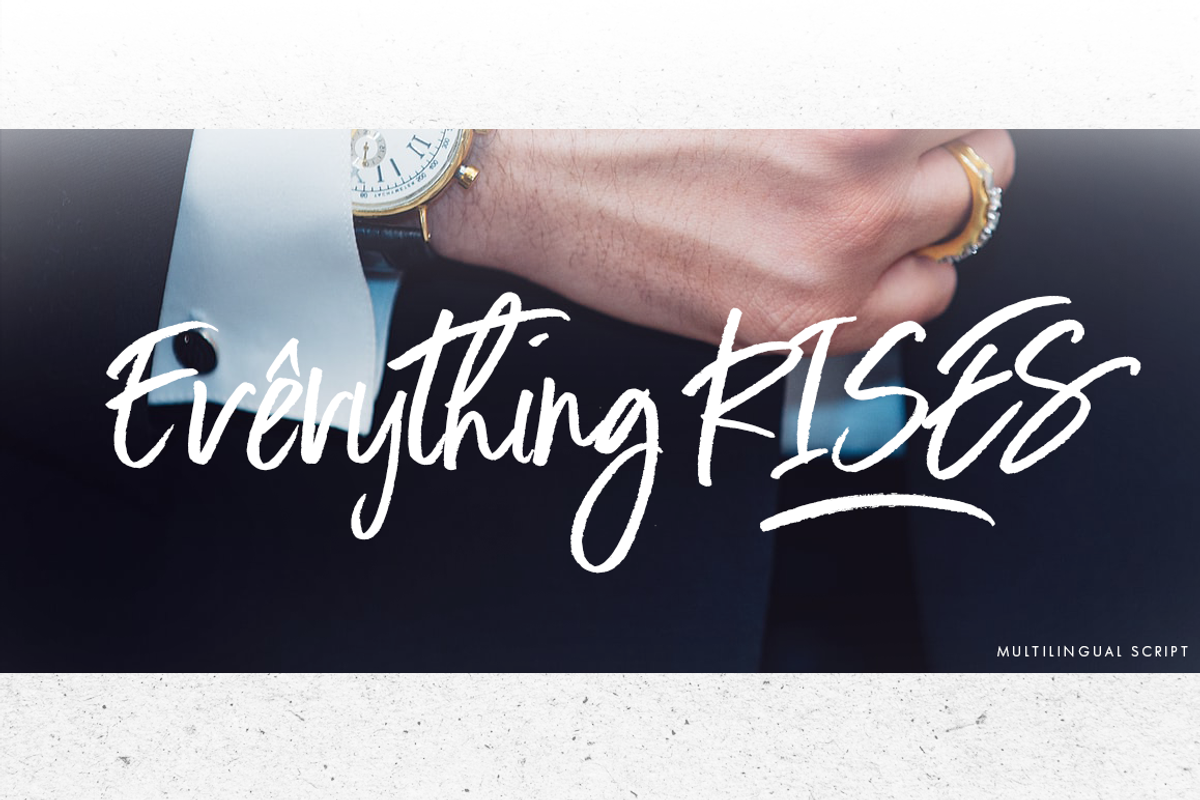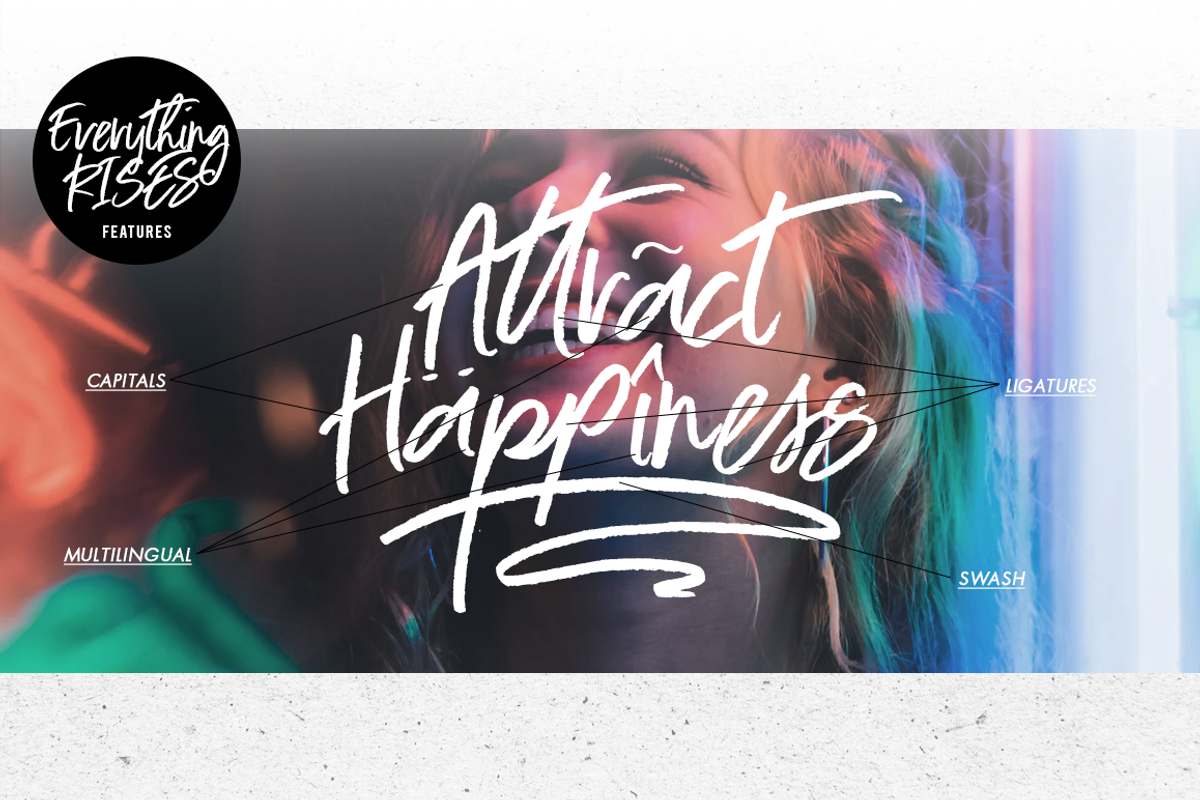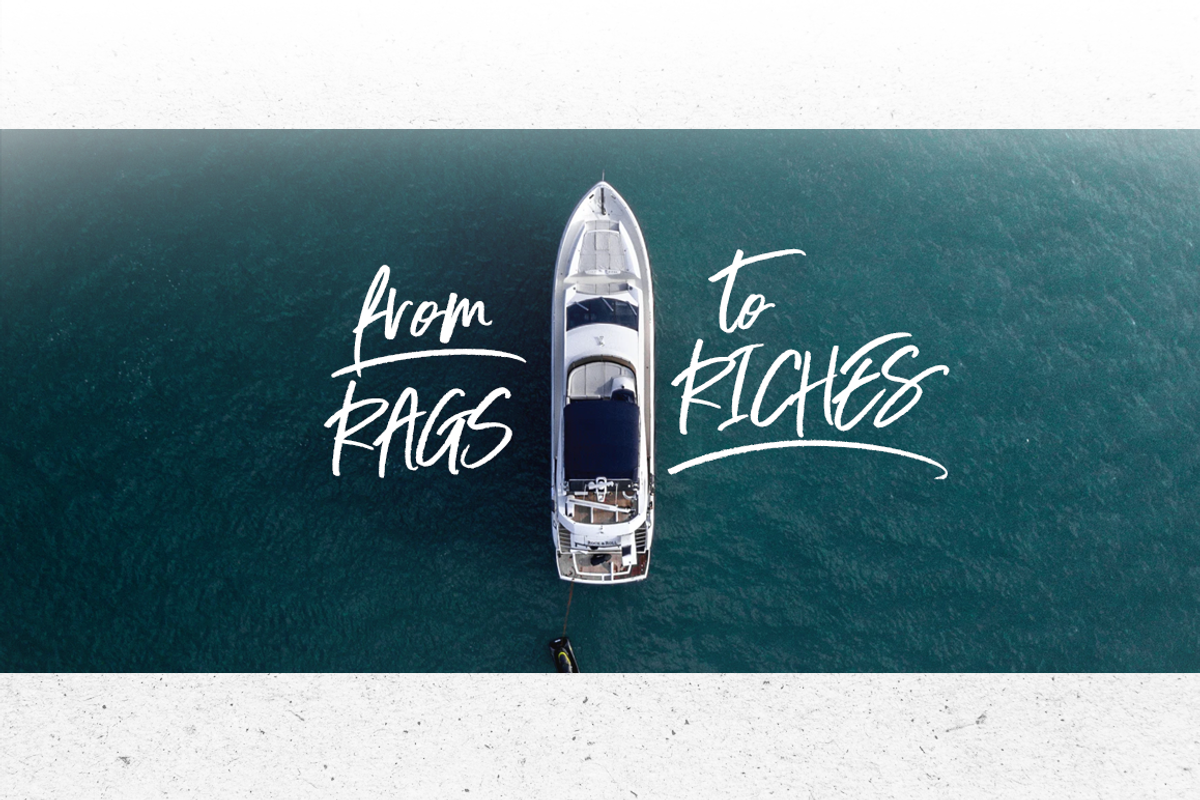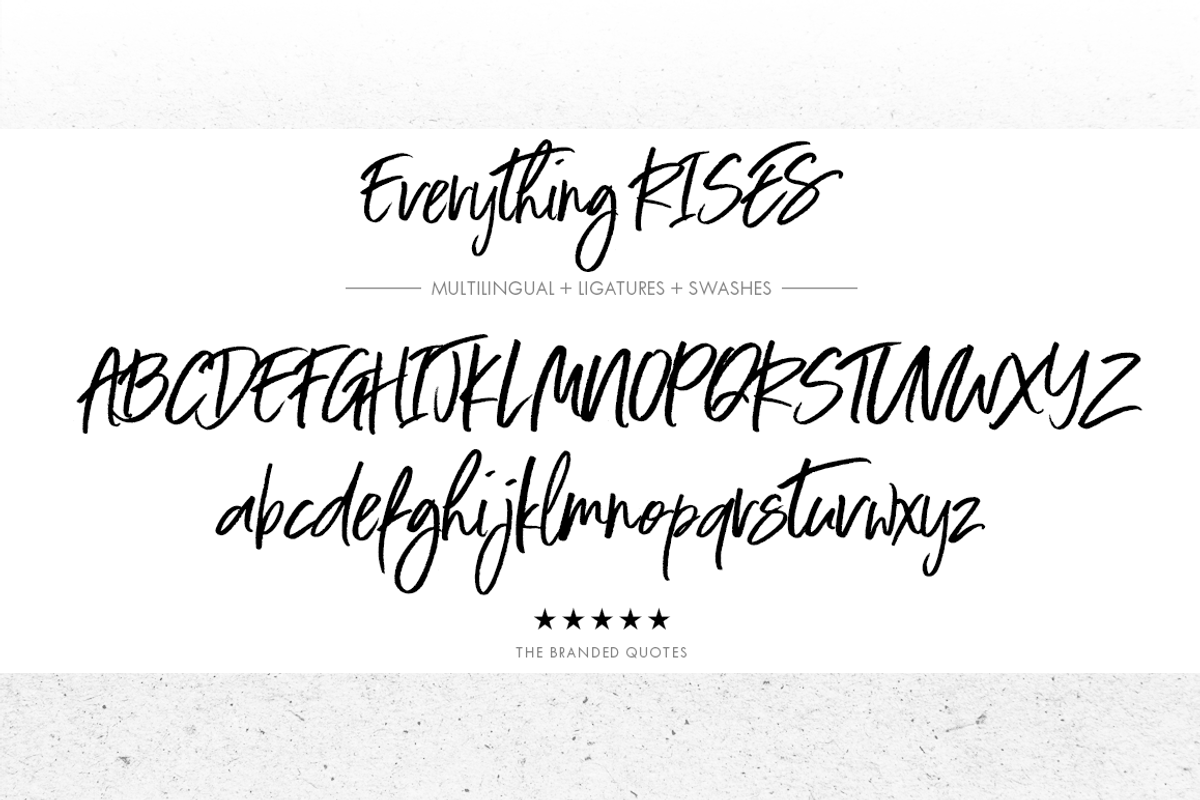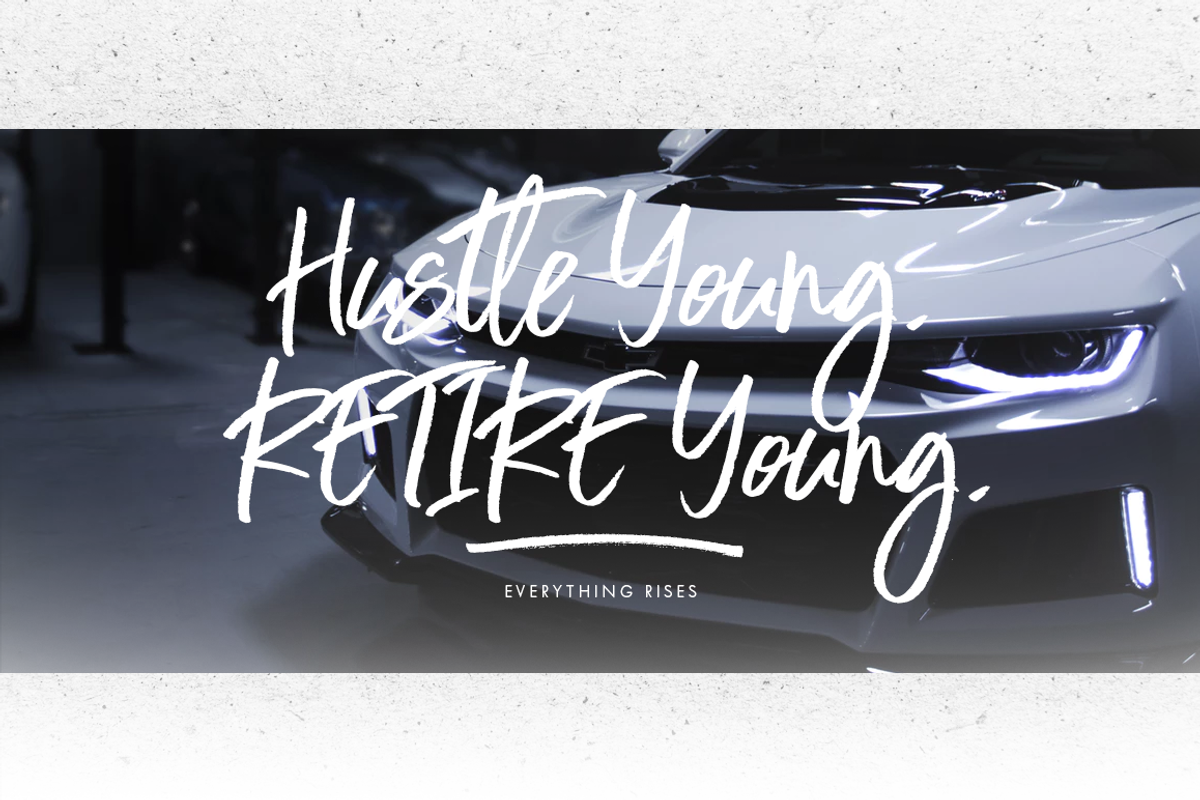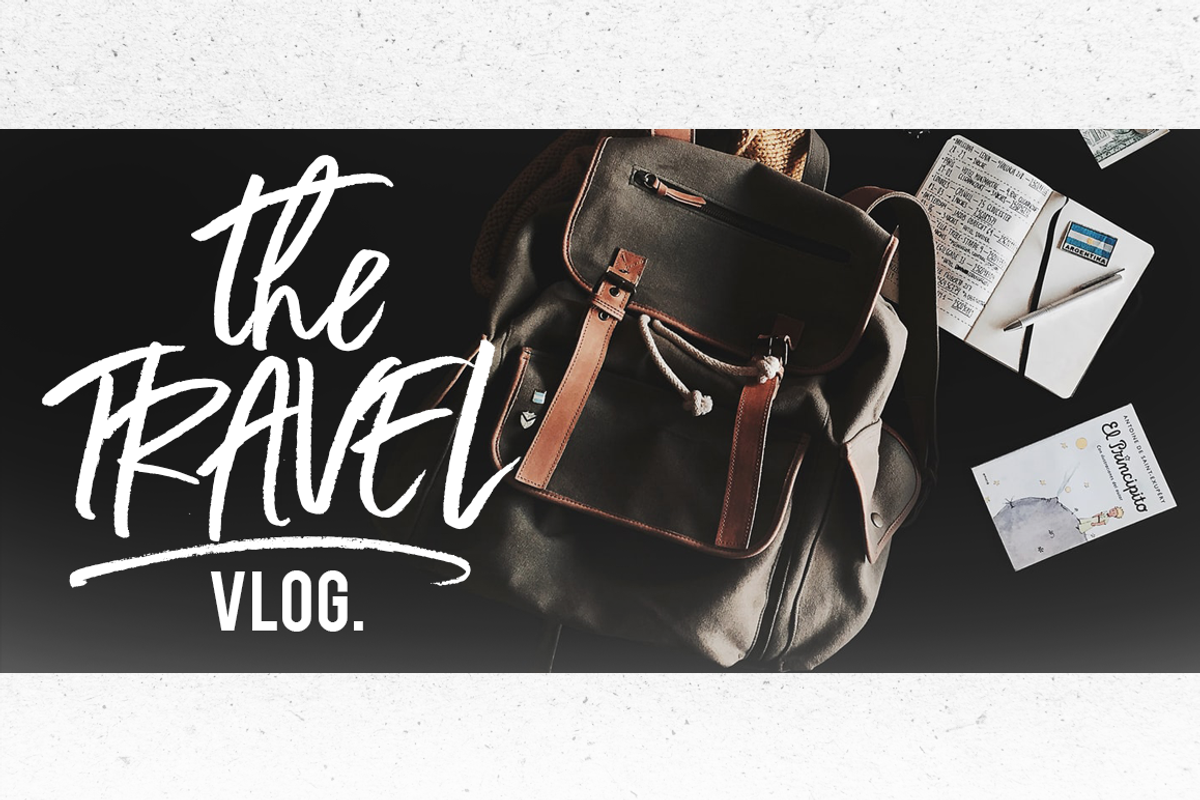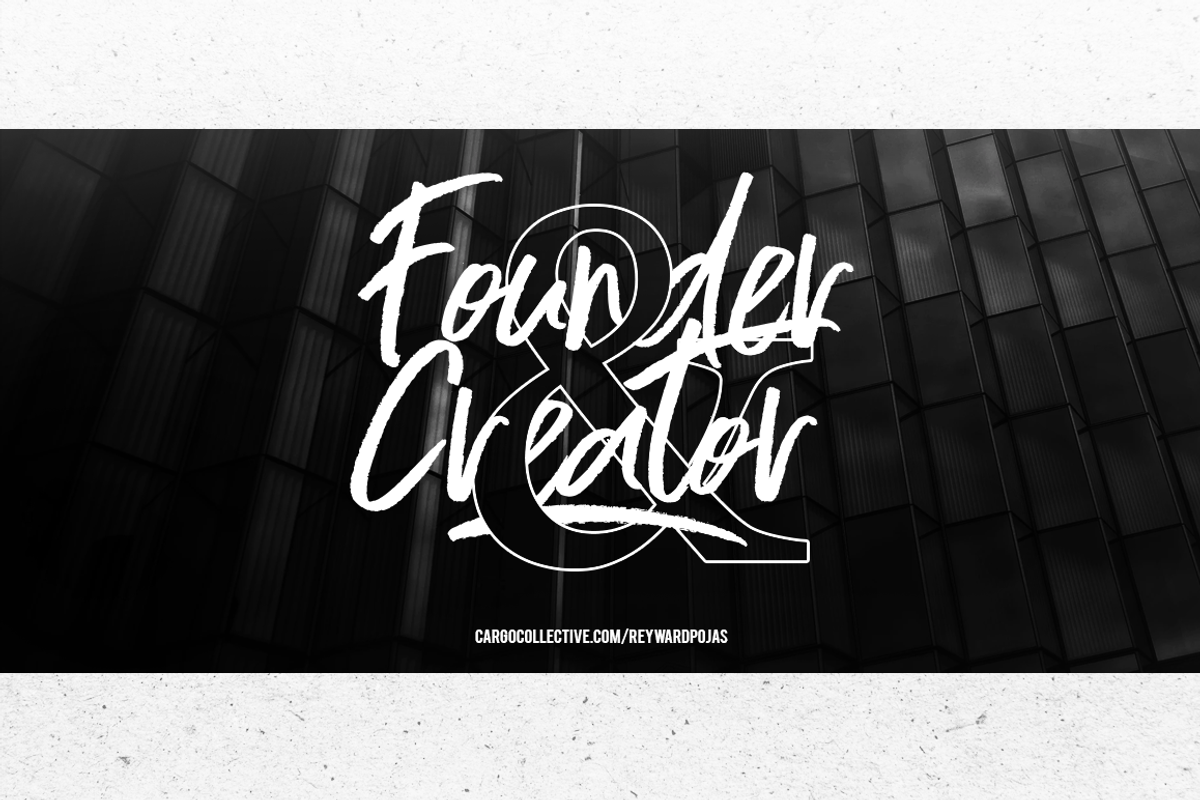
Everything RISES - Typeface
Everything RISES is a multilingual typeface packed with all the motivations. Unleash the alpha and let the logical mind dominates! This brush script can work all lowercase, all capitals or mix them both. Overlay it on your photographs and designs for a glamorous result. Now heads up and wear the mindset of a RISER.
Everything RISES Capitals - we separated the uppercase letters for an easy design editing; also has ligatures.
- Everything RISES Script - includes the standard glyphs with ligatures and supports multilingual.
- Everything RISES Swashes - includes all the swashes you can select to incorporate in your text.